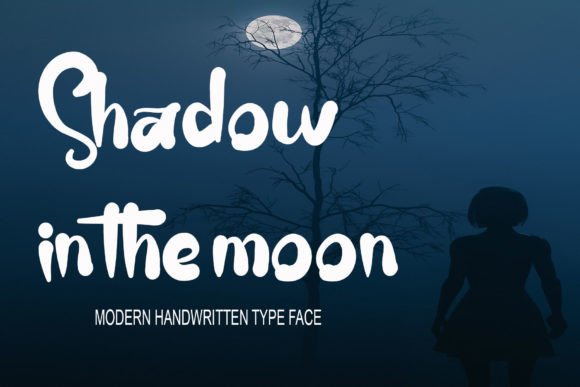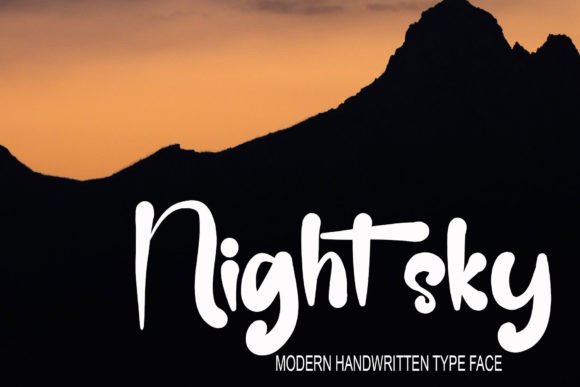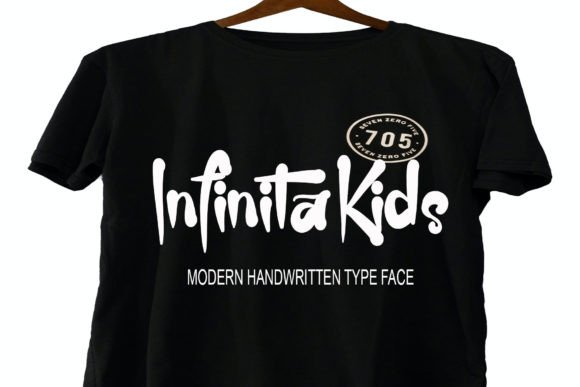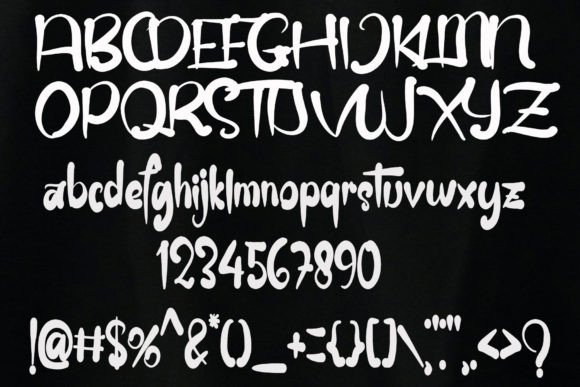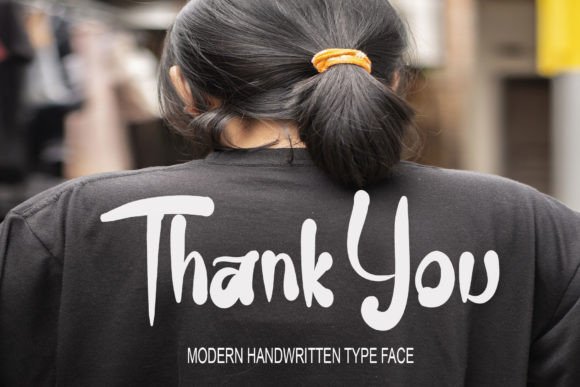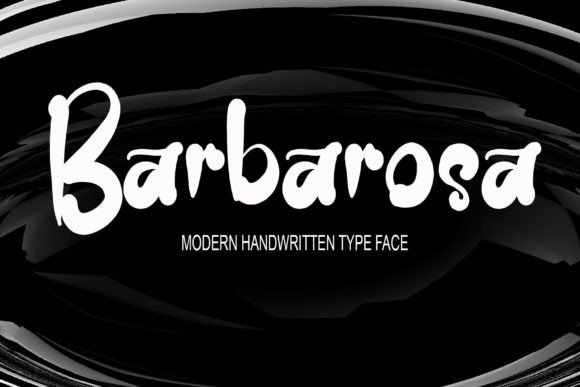
Discover the Elegance of Barbarosa Font: A Handwritten Gem for Designers
In the world of typography, fonts play a crucial role in conveying messages, evoking emotions, and creating lasting impressions. For designers, crafters, and anyone looking to add a personal touch to their projects, the Barbarosa font is a treasure trove of elegance and simplicity. This beautifully handwritten font, crafted using a tablet, is making waves in the design community for its versatility, charm, and wide range of applications.
The Birth of Barbarosa Font
Barbarosa is a font that eschews the conventional methods of typeface creation, instead embracing the organic feel of handwriting. Its creator, using a tablet as the medium, has managed to infuse the font with a sense of warmth and personality that is often lost in digital typography. This process not only lends the font its unique character but also makes it highly relatable and engaging.
Characteristics of Barbarosa Font
At first glance, Barbarosa appears to be very simple, and it’s this simplicity that makes it so appealing. The font boasts clean lines, smooth curves, and a fluidity that mimics natural handwriting. Despite its straightforward appearance, Barbarosa exudes a cool and stylish vibe that can elevate any design project. Its legibility is another significant advantage, making it suitable for both digital and print media.
Applications of Barbarosa Font
The versatility of Barbarosa font is one of its most compelling features. It’s perfect for a myriad of design projects, including:
- Websites: Adding a personal touch to website headers, titles, or even the entire content can make a site stand out. Barbarosa’s readability and style ensure that it complements web design without overpowering it.
- Wedding Invitations: For those planning their special day, custom wedding invitations set with Barbarosa font can add an elegant and intimate feel to the announcement.
- Business Cards: In a world of corporate jargon, a business card with a handwritten font like Barbarosa can be a refreshing change, showcasing the owner’s personality.
- Signatures: Whether for professional documents or personal artworks, incorporating Barbarosa into signatures can add a touch of sophistication.
- Advertisements: For product advertisements or any promotional materials, Barbarosa can help brands connect with their audience on a more personal level.
Why Designers and Crafters Love Barbarosa
Designers and crafters appreciate fonts that offer both aesthetic appeal and practicality. Barbarosa ticks all the right boxes:
- Ease of Use: Being a digital font, Barbarosa is easy to integrate into various design software, making the design process smooth and efficient.
- Customization: Its handwritten nature allows for a degree of flexibility in terms of size, color, and styling, giving designers the freedom to experiment.
- Uniqueness: In a sea of generic fonts, Barbarosa offers a distinctive look that can make projects stand out.
Barbarosa font, with its simplicity, elegance, and versatility, is a valuable addition to any designer’s toolkit. Whether you’re working on a website, crafting wedding invitations, designing business cards, or brainstorming advertisement ideas, Barbarosa can help you achieve that perfect blend of style and substance. Its ability to convey warmth and personality through a digital medium makes it a standout choice for projects that demand a personal touch. As the world of design continues to evolve, embracing unique and handcrafted elements like the Barbarosa font can be the key to creating memorable and impactful designs.
So, if you’re on the lookout for a font that combines the charm of handwriting with the benefits of digital typography, Barbarosa is undoubtedly worth exploring. Its potential to transform your design projects and leave a lasting impression on your audience is immense. Dive into the world of Barbarosa font today and discover how this simple yet stylish typeface can elevate your designs to new heights.